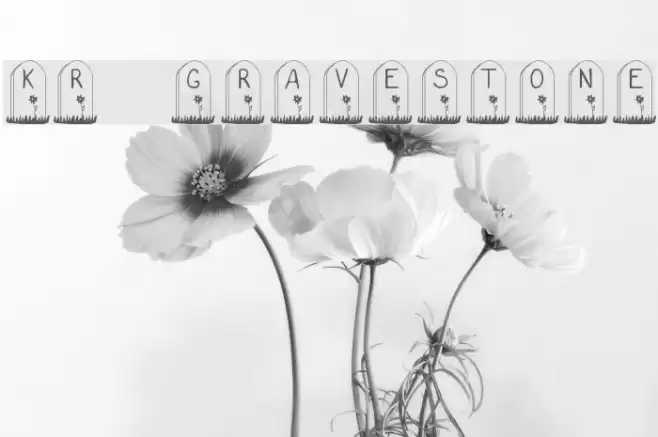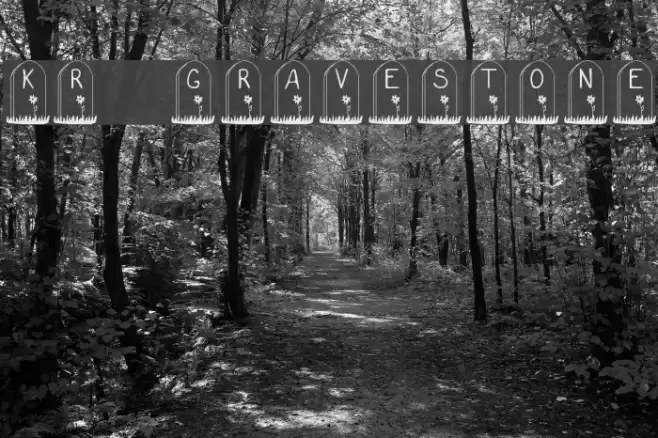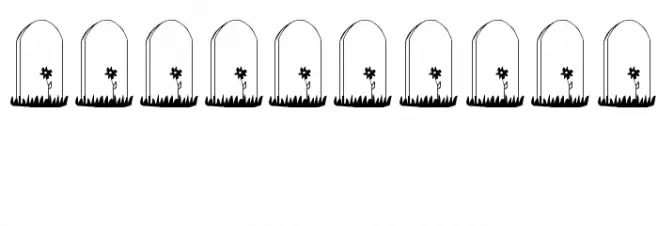
KR Gravestone Font
KR Gravestone Description
This decorative font features uppercase letters styled within gravestone shapes, each adorned with a small flower and grass at the base. The letters are bold and clear, making them stand out against the gravestone backdrop. The unique design gives a whimsical yet slightly eerie feel, perfect for themed projects. The font lacks lowercase letters and numbers, focusing solely on uppercase characters, which enhances its decorative appeal. The gravestone motif is consistent across all letters, providing a uniform and cohesive look.
A decorative font with uppercase letters inside gravestone shapes, featuring flowers and grass from Uncategorized fonts.
- Proposed Projects: Ideal for Halloween-themed designs, spooky invitations, event posters, and decorative signage.